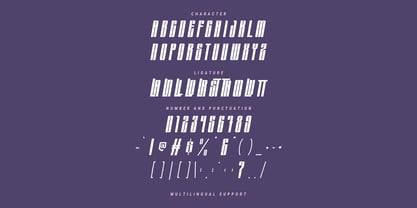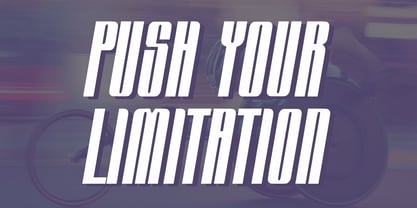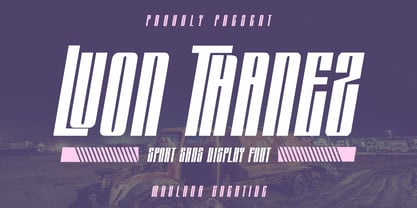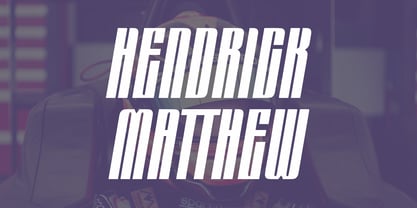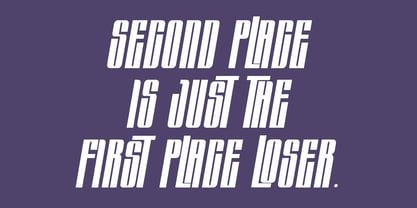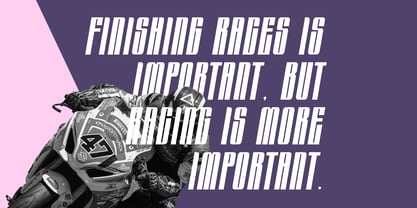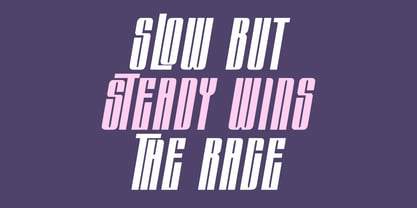
MC Luon Thanez
La familia tipográfica MC Luon Thanez fue diseñada por Gilang Maulana y publicada por Maulana Creative. MC Luon Thanez contiene 1 estilos. Más información sobre esta familia
Luon Thanez is a modern sport racing sans font. Fun character with a bit of ligatures. To give you an extra creative work. Luon Thanez font support multilingual more than 100+ language. This font is good for logo design, Social media, Movie Titles, Books Titles, a short text even a long text letter and good for your secondary text font with sans or serif. Make a stunning work with Luon Thanez font.